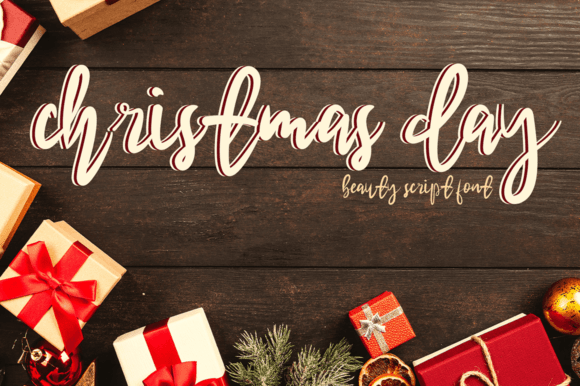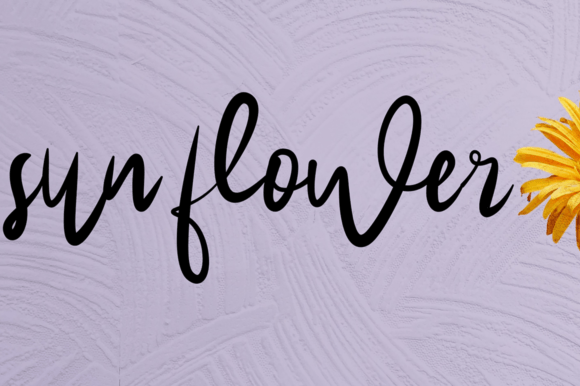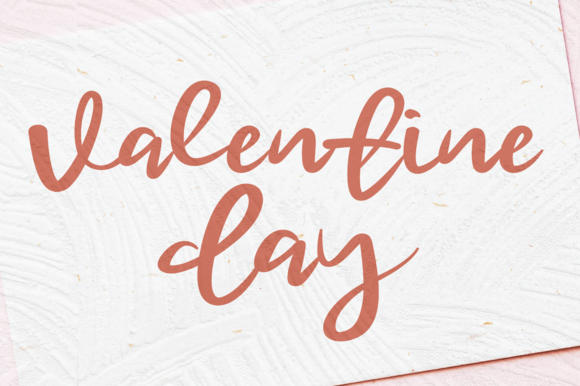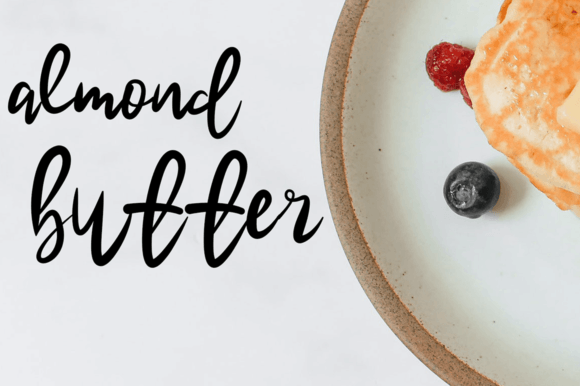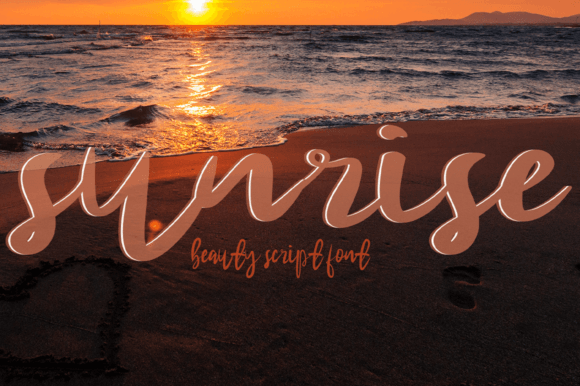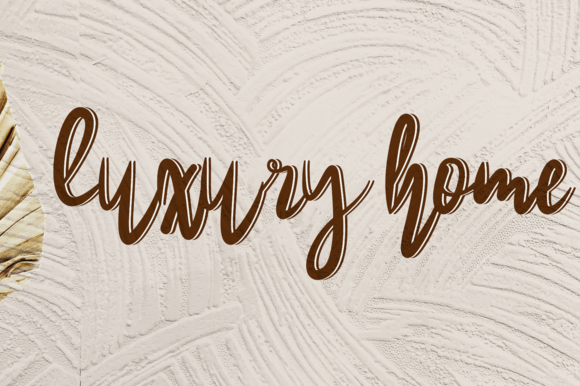
Introduction to Farm House Font
Imagine you’re brainstorming ideas for a wedding invitation, and you stumble upon the perfect font – elegant, simple, and beautiful. The Farm House Font is that perfect find, adding a touch of warmth and personality to your design project. Its unique handwriting style makes it a standout choice for any creative endeavor, from wedding invitations to greeting cards and logos.
Whether you’re working on a personal or professional project, the Farm House Font is an excellent choice for adding a touch of elegance and sophistication. Its versatility and beauty make it a must-have for any designer’s toolkit.
Key Features of Farm House Font
- Unique, hand-drawn design that adds a touch of rustic charm to any creative project
- Includes 6 font styles, each with its own distinct personality and flair, perfect for adding variety to your design
- Perfect for use in farmhouse-themed designs, wedding invitations, and other creative projects that require a touch of rustic elegance
Honest Review: Farm House Font
As a designer, I’m always on the lookout for high-quality fonts that can elevate my creative projects. Recently, I stumbled upon the Farm House Font, and I’m excited to share my honest review.
- Rustic charm: The Farm House Font has a lovely, rustic charm that’s perfect for projects with a country or vintage vibe.
- High quality: The font is crisp and clear, making it ideal for both digital and print designs.
- Limited character set: The font doesn’t have a comprehensive character set, which might limit its use for more complex projects.
- No bold or italic options: While the font is great for body text, it lacks bold and italic options, which can be a drawback for headings or emphasis.
Overall, I’m impressed with the Farm House Font’s unique charm and high quality. While it has some limitations, it’s still a great addition to any designer’s toolkit. If you’re looking for a free font with a rustic vibe, the Farm House Font is definitely worth checking out.
The Farm House Font is commonly used in:
1. Wedding invitations and decorations.
2. Home decor and furniture design.
3. Branding and marketing materials.
Alternatives to Farm House Font
The Great Vibes Font is a beautiful, elegant script font perfect for creative projects that require a high-end feel. It’s ideal for wedding invitations, luxury branding, and other design elements that need a touch of sophistication. When to use: wedding invitations, luxury branding, high-end creative projects. How it compares to Farm House Font: While Farm House Font has a more rustic feel, Great Vibes Font offers a more refined and elegant look.